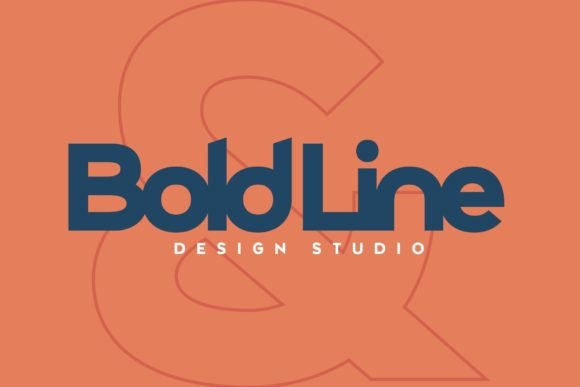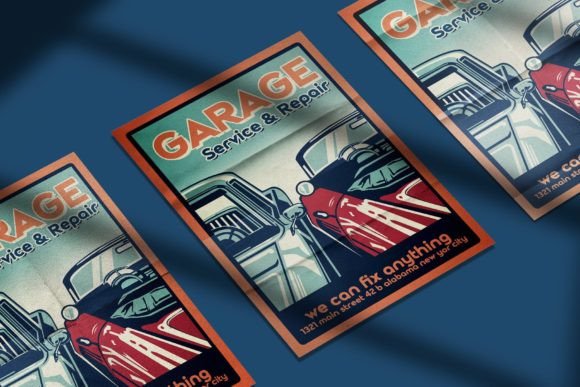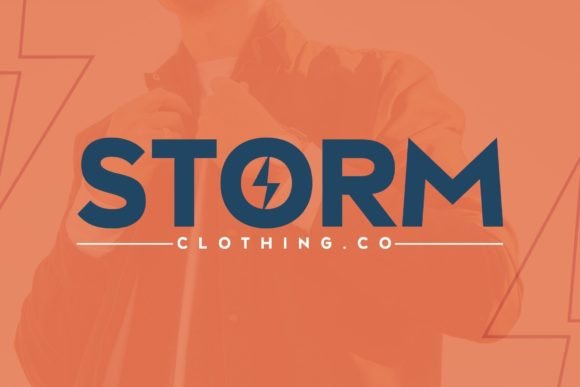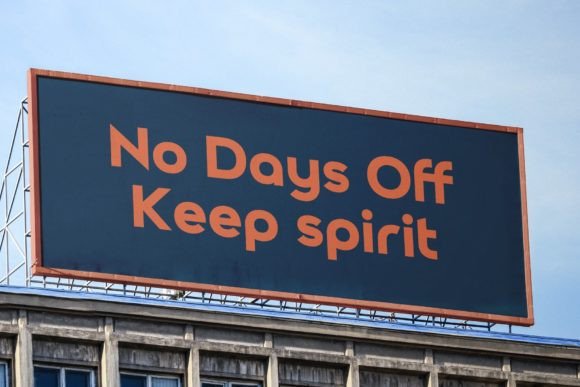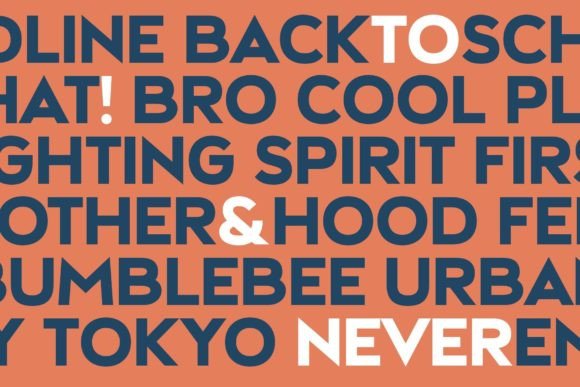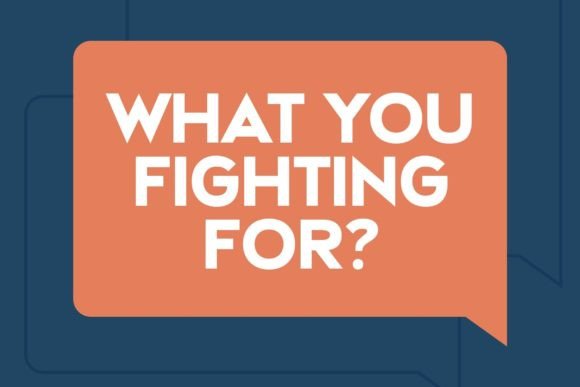
Introduction to Magnol Font
Magnol is an urban geometric sans serif font.
Its modern and trendy vibe makes it perfect for a wide pool of projects .
Key Features of Magnol Font